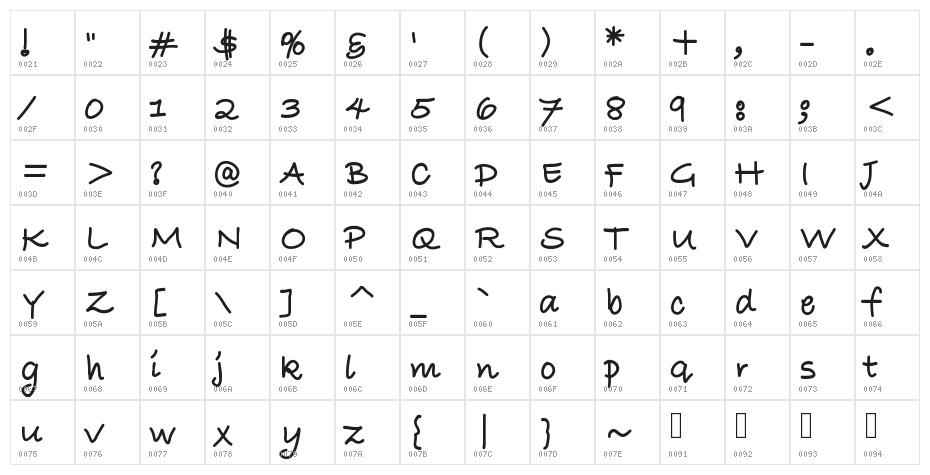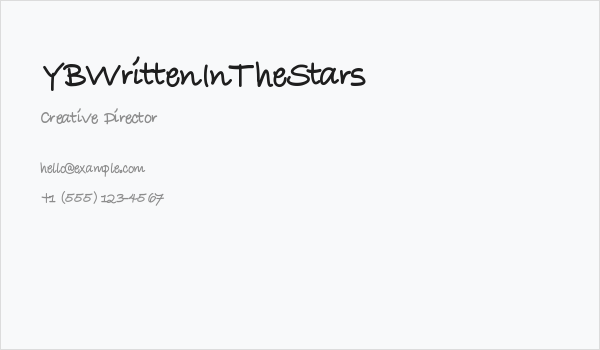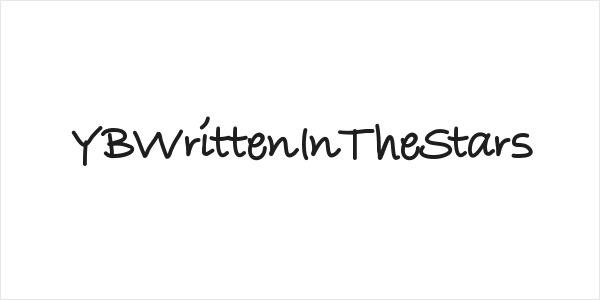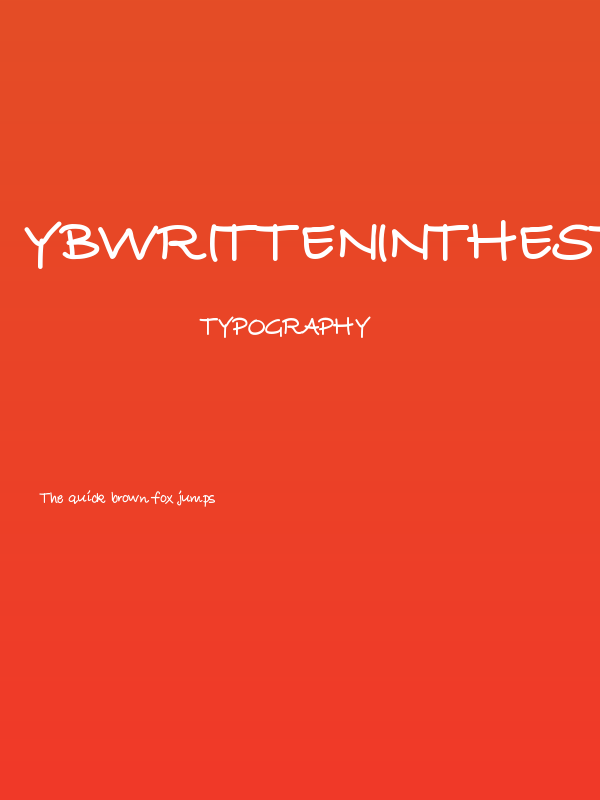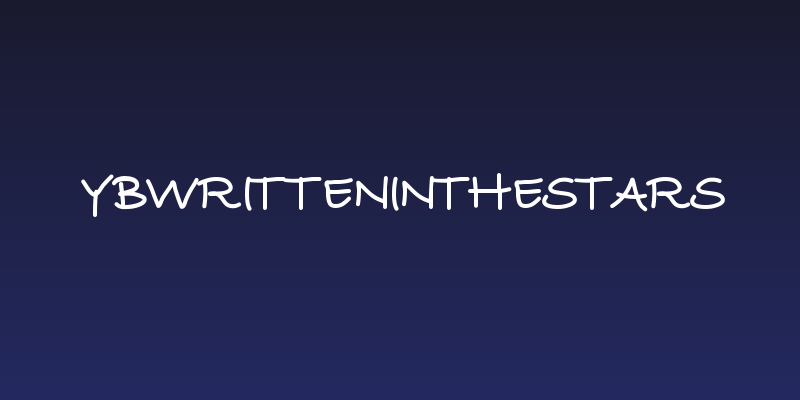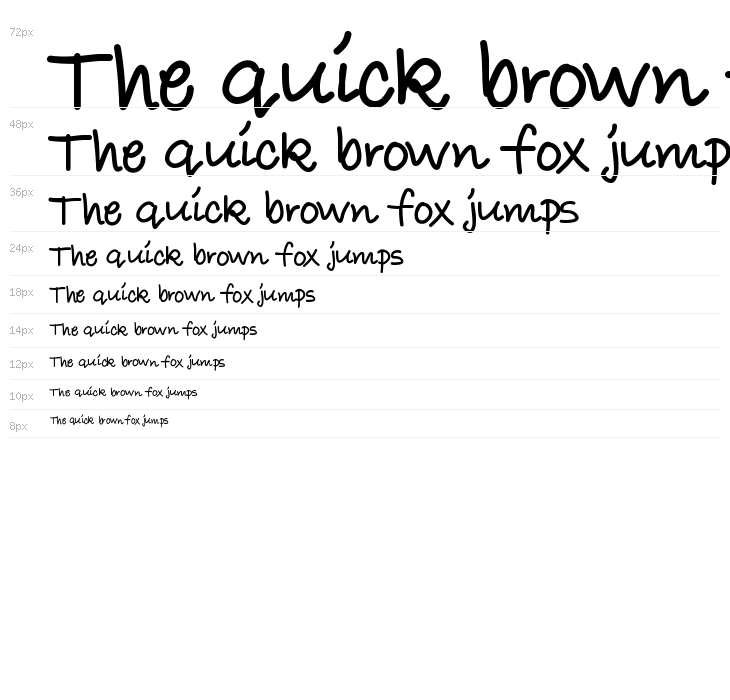
YBWrittenInTheStars Font
YBWrittenInTheStars Description
This font exudes a playful and casual handwritten style, characterized by its smooth, flowing curves and slightly irregular letterforms that mimic natural handwriting. The uppercase and lowercase letters maintain a consistent style, with rounded edges and a slight slant that adds to its informal charm. The numerals and special characters are crafted with the same fluidity, ensuring a cohesive look across all text. Its legibility is enhanced by the moderate spacing between characters, making it suitable for both short and medium-length text. The font's overall appearance is friendly and approachable, making it ideal for projects that require a personal touch.
| Use Case | Logos, Invitations, Social Media |
| Proposed Projects | Perfect for greeting cards, personal invitations, casual branding, and social media graphics. |